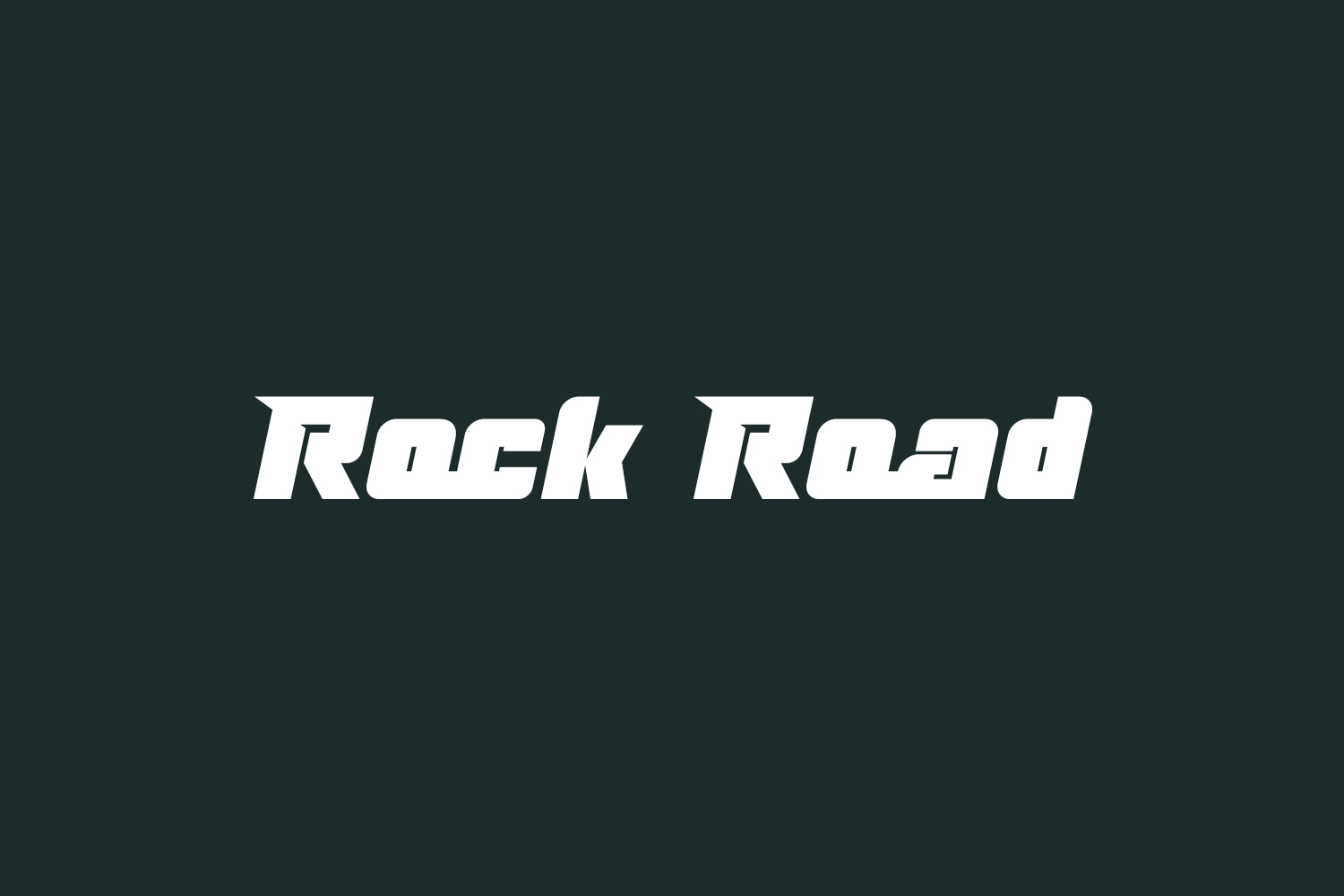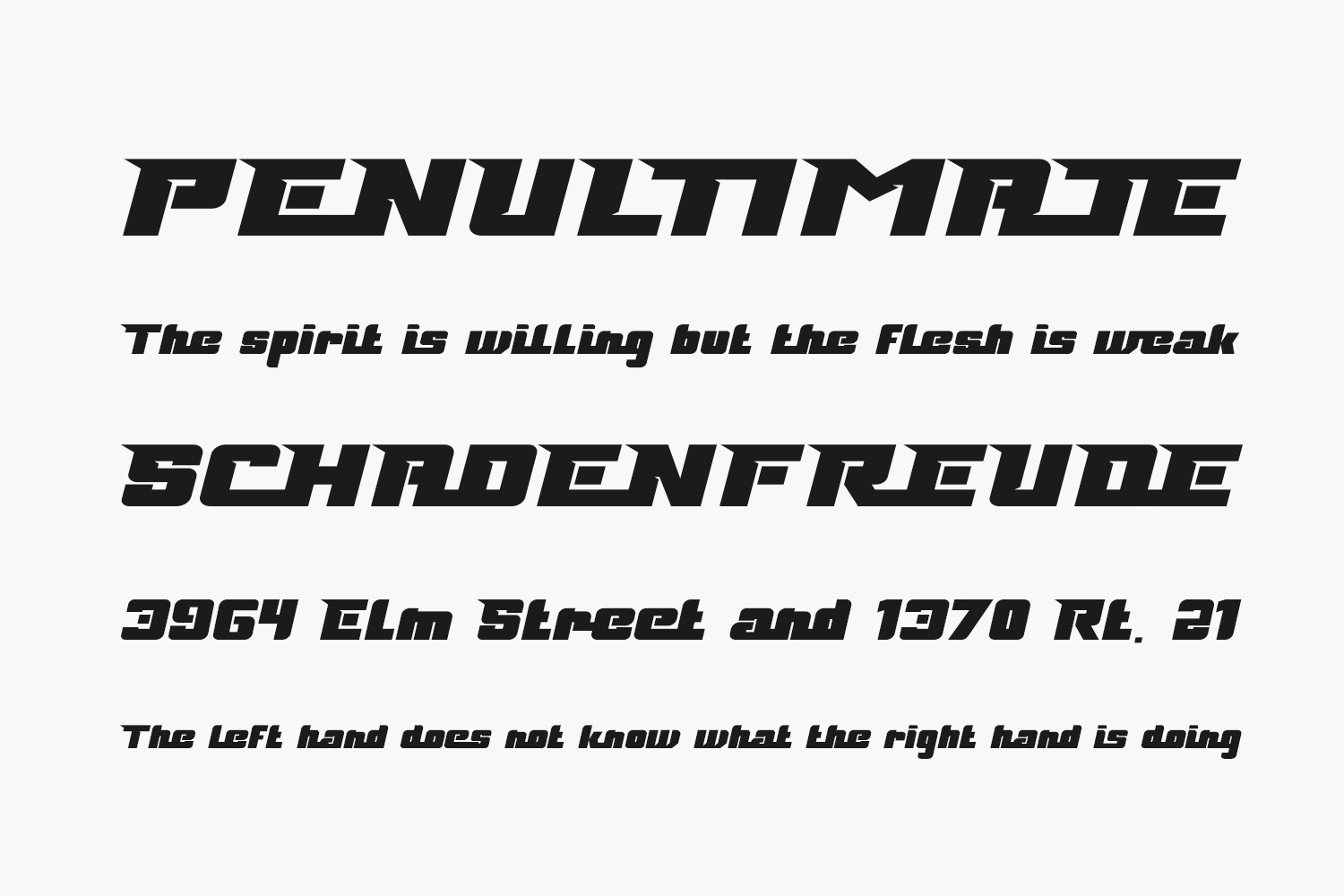
Introducing Rock Road Free Font, a dynamic racing-themed display font characterized by its sharp, consistent angles. With a commanding and bold personality, it’s an ideal choice for projects seeking to leave a lasting impact. Download the font for free if you need it for personal use or purchase the full version for commercial use.
Designed by PutraCetol Studio